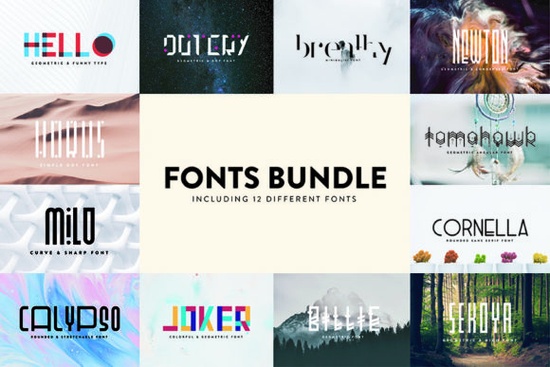
If you’ve been searching for a versatile collection of typefaces that can handle everything from bold headlines to subtle branding details, Fonts Bundle Vol 1 Font is worth a closer look. Whether you’re designing t-shirts, packaging, social media graphics, or wedding invitations, this bundle gives you room to experiment without constantly switching sources. It’s especially handy if you’re juggling multiple client projects or just love having creative options at your fingertips.
The bundle pulls together fonts across several styles display, sans serif, decorative, slab serif, and more so you’re not boxed into one aesthetic. Some fonts even include playful swashes and alternate glyphs, which are easy to access because they’re PUA encoded. That means no digging through character maps or installing extra software. Just open your design app, pick the font, and start styling. A quick note: for certain fonts in the set, make sure your workspace is set to RGB mode to see all the details as intended.
Which fonts in the bundle work best for logos or branding?
For clean, modern logos, try pairing a minimalist sans serif with something bolder for contrast. If you’re going for personality think food trucks, boutiques, or handmade goods display fonts like Allspice or Fries and Shake bring charm without being overwhelming. You’ll also find solid options like Anton for strong, readable headlines it’s great for posters or web banners where impact matters.
What if I’m new to using decorative fonts or swashes?
Start simple. Open a document in Illustrator, Photoshop, or even Canva (if you upload the font manually), and type out your text. Then switch between fonts in the bundle to see how each one changes the tone. For fonts with swashes or alternates, most design programs let you browse glyphs right inside the font menu look for “Glyphs” or “OpenType Features.” Try Cranbarries for a script with elegant tails, or explore the full bundle page to preview how each family behaves in different sizes and weights.
How do I know which font style to pick for my project?
- Display fonts Use for headlines, logos, or anywhere you want to grab attention. Think posters, thumbnails, or product labels.
- Sans serif Clean and readable. Ideal for body text, websites, or minimalist branding.
- Slab serif Adds structure and warmth. Works well for editorial layouts or retro-inspired designs.
- Decorative Best used sparingly. Great for accents, quotes, or seasonal campaigns.
You don’t need to stick to one category per project. Mixing a bold display font with a quiet sans serif creates balance like pairing Allspice with a neutral sans for a bakery menu, or combining Fries and Shake with something geometric for a fun event flyer.
Any tips for getting the most out of this bundle?
- Test readability. Some decorative fonts look amazing at large sizes but become hard to read when scaled down. Always check how your text appears at actual output size.
- Pair fonts intentionally. Browse Anton’s page or Cranbarries’ previews to see suggested pairings. Often, the designer includes combo ideas that save you time.
This isn’t a “one-size-fits-all” collection and that’s the point. It’s built for people who like to tweak, test, and tailor their typography to match the mood of each project. Whether you’re running a small Etsy shop, managing social content for a local business, or just making birthday cards for friends, having this range on hand removes friction from your workflow.